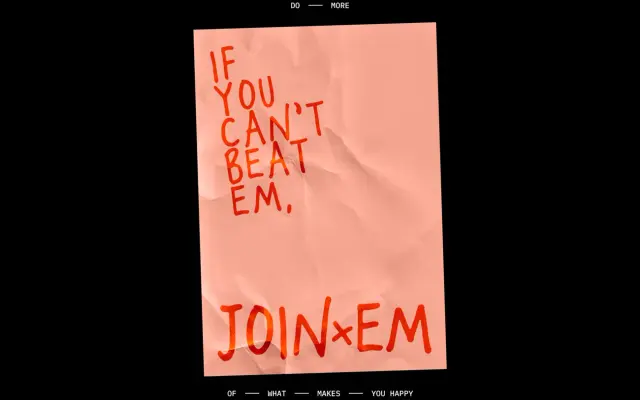
Stolen Hand
An all-caps marker font drawn with a Sharpie, digitised with natural edges and stylistic alternates for A-Z and 0-9.
Drawn by hand with a Sharpie and converted directly into a font, retaining the organic edges and weight variation of a real marker pen. The family is strictly uppercase and includes two sets of stylistic alternates, labelled Quirky and Sketches, covering the full A-Z and numerals. Best suited to casual display use where a hand-lettered, street-adjacent feel is needed.
An all-caps marker-drawn typeface, hand-lettered with a Sharpie and digitised. Classified as script/handwritten due to its organic, hand-drawn character with natural marker edges.